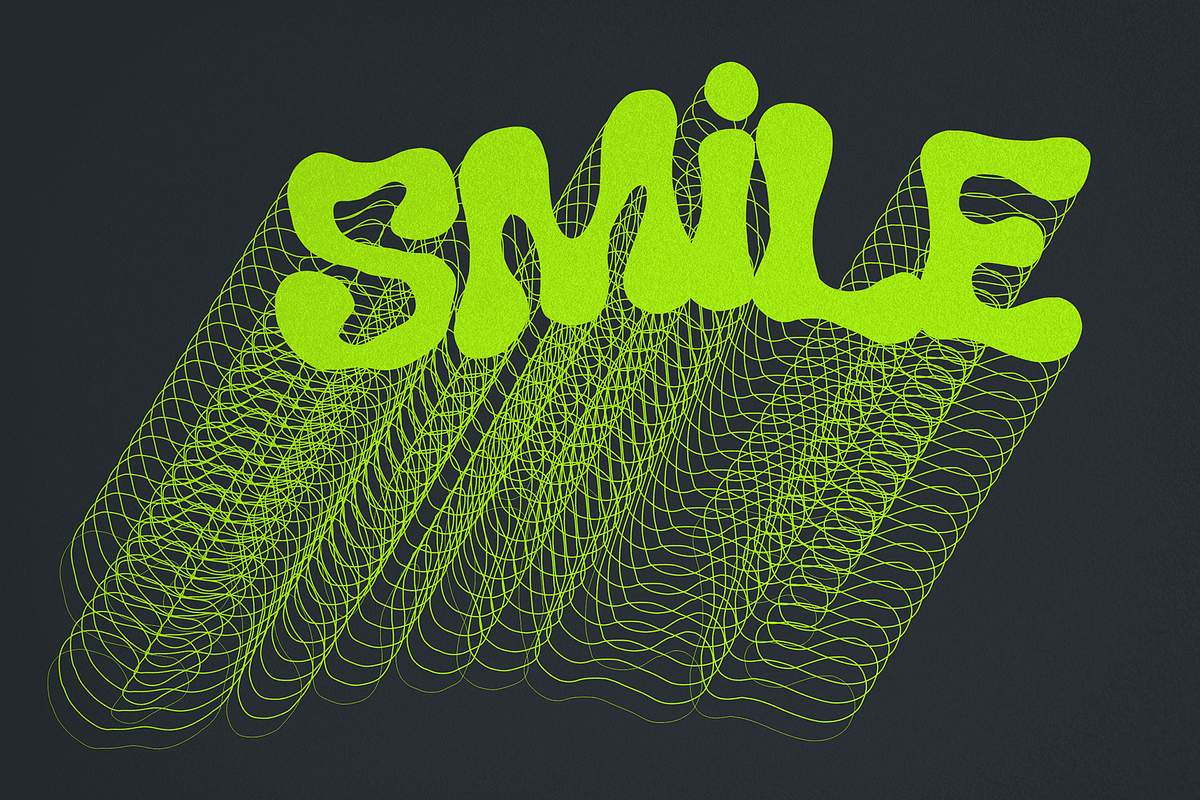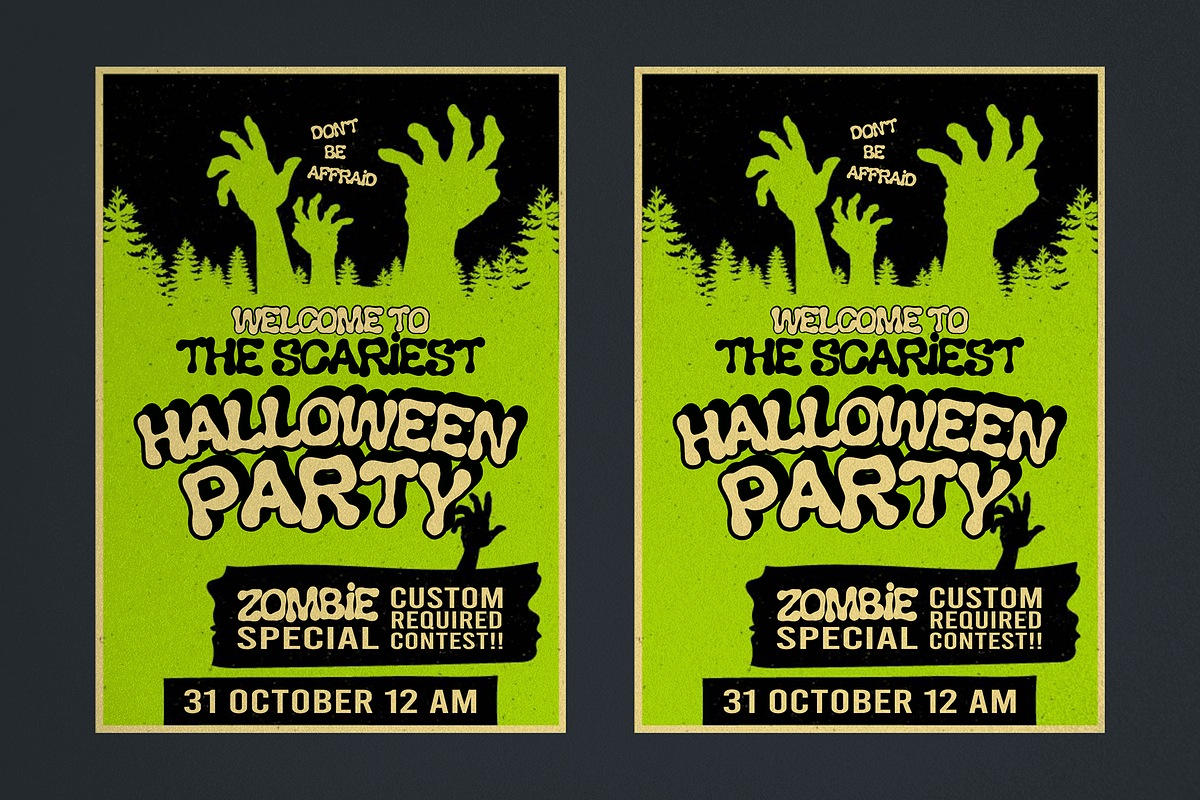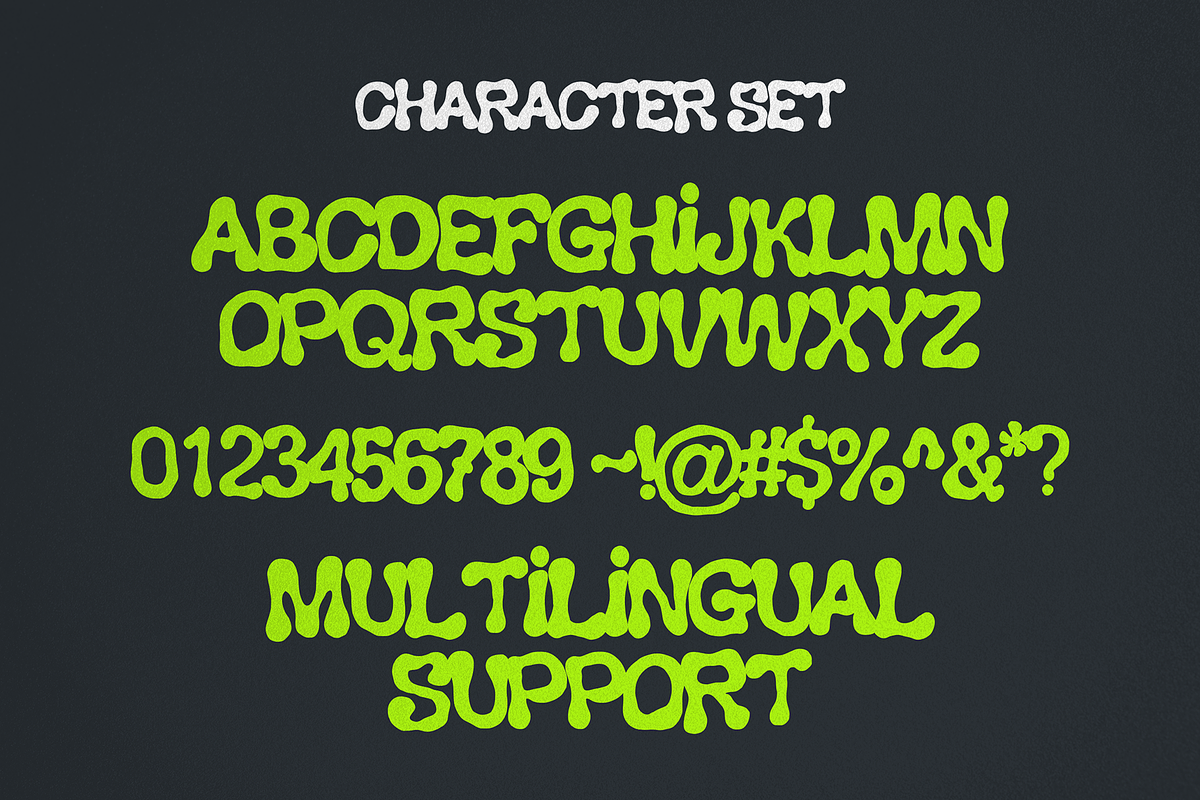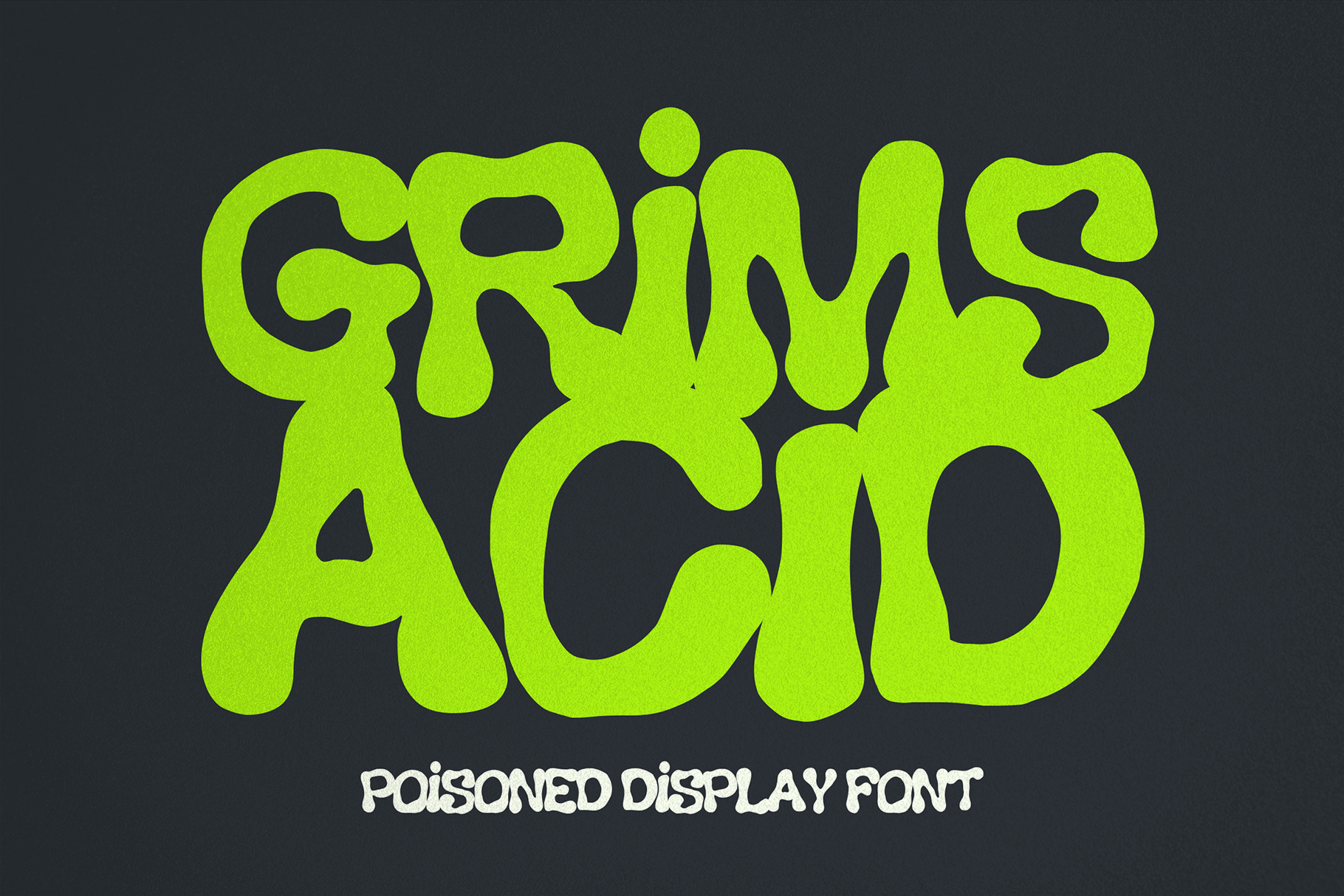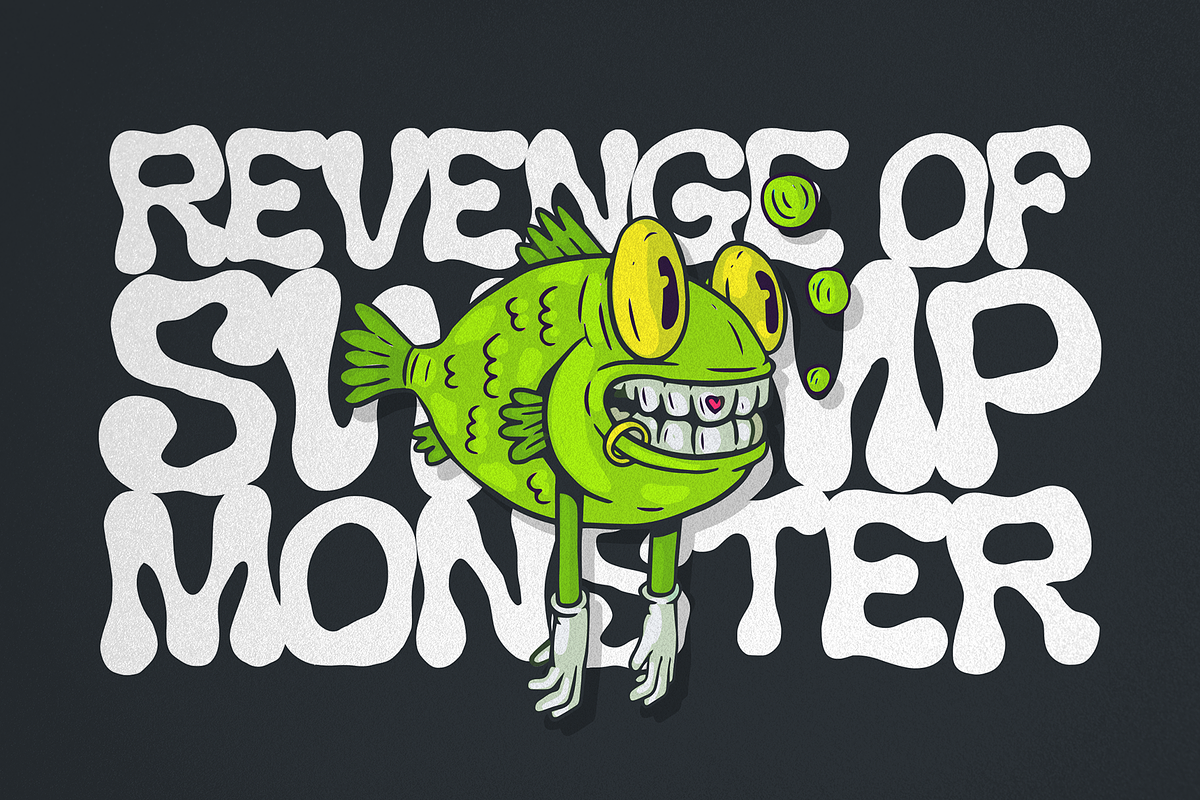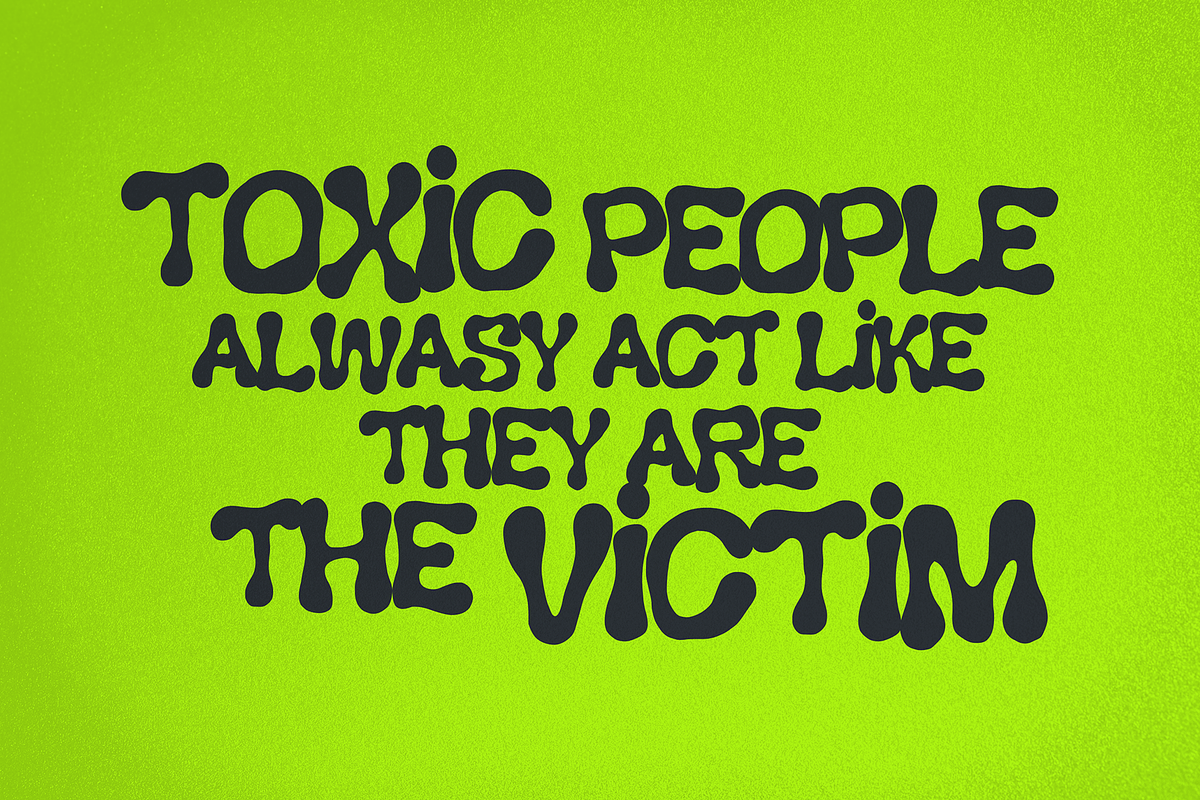
Grims Acid - Liquid Display Font
Grims Acid is a spine-chilling, liquid-inspired Halloween display font that oozes with eerie vibes. With its twisted, dripping letters and macabre aesthetics, this font is the perfect choice for adding a touch of horror and dark whimsy to your Halloween-themed designs. Whether you're creating spooky party invitations, haunted house posters, or eerie social media graphics, Grims Acid will give your text a hauntingly memorable twist that sends shivers down the spine. Embrace the supernatural and let Grims Acid infuse your designs with a ghoulishly delightful atmosphere.